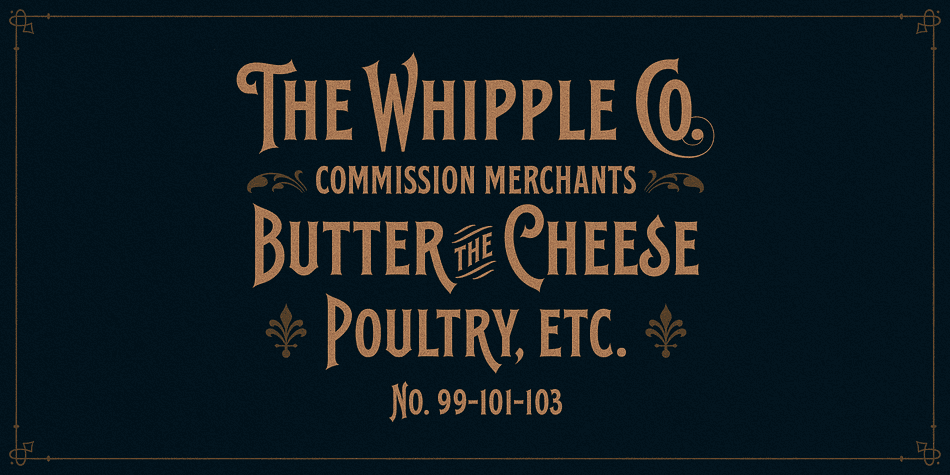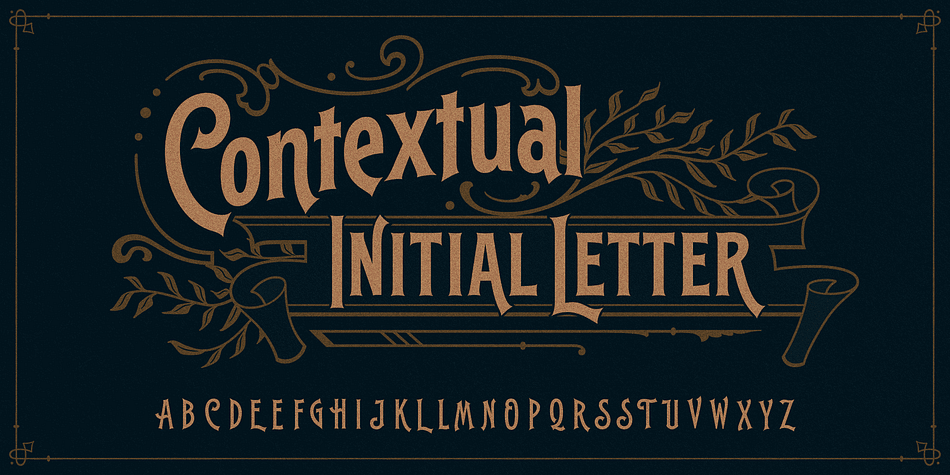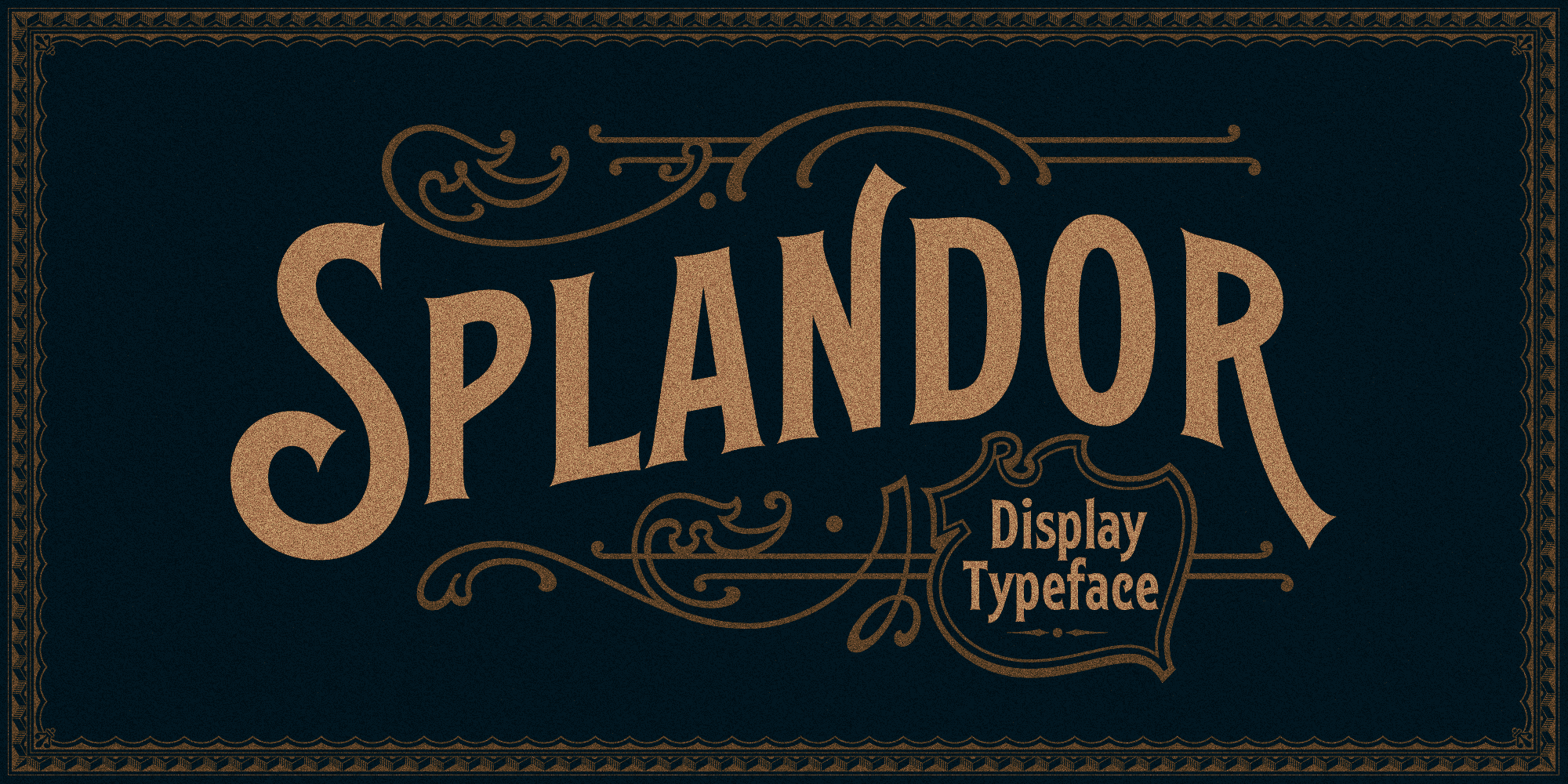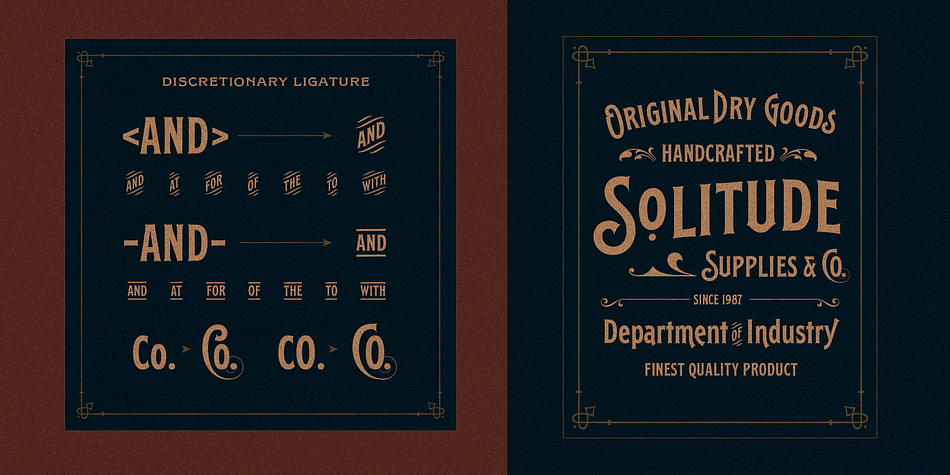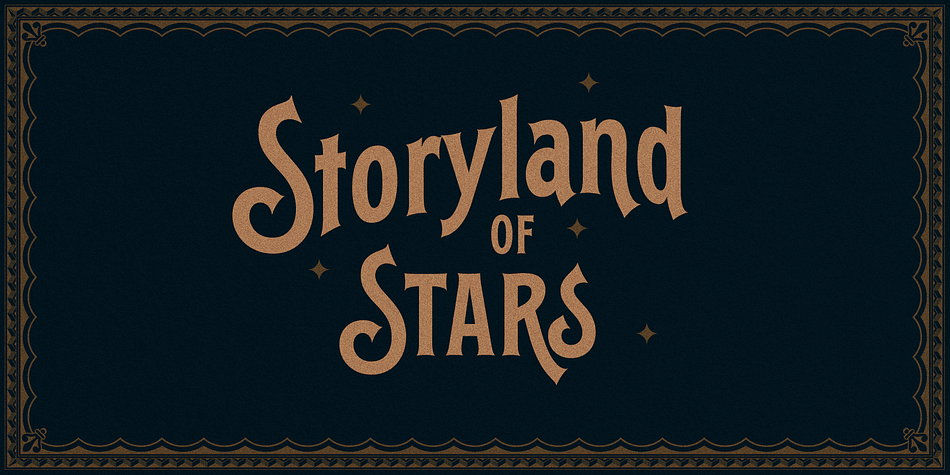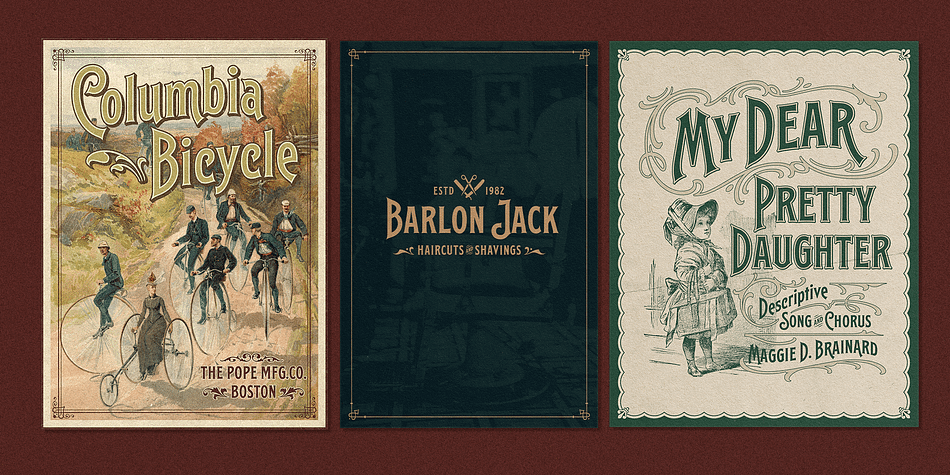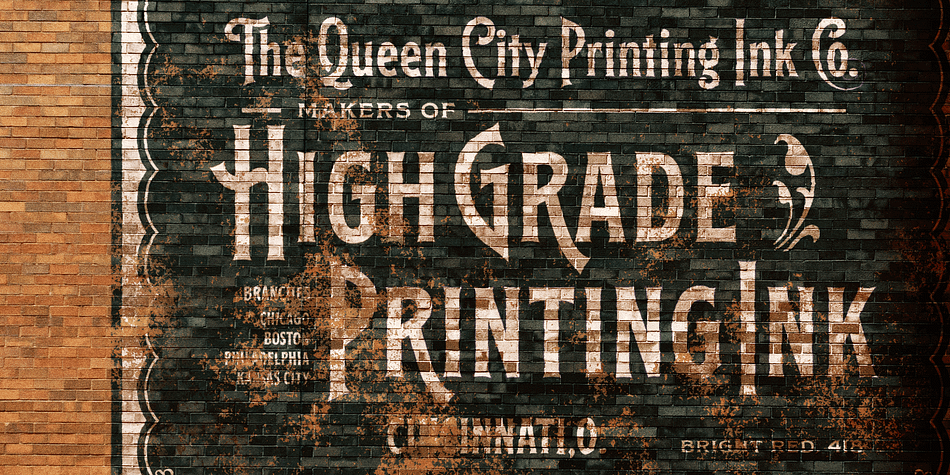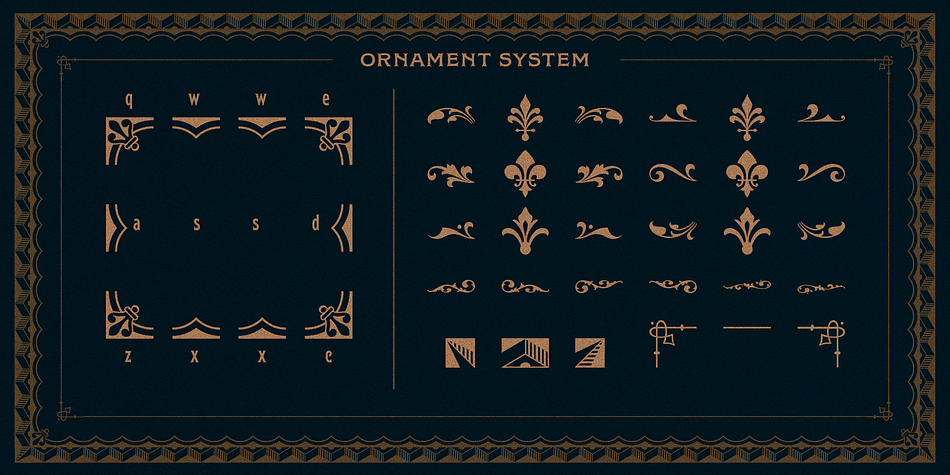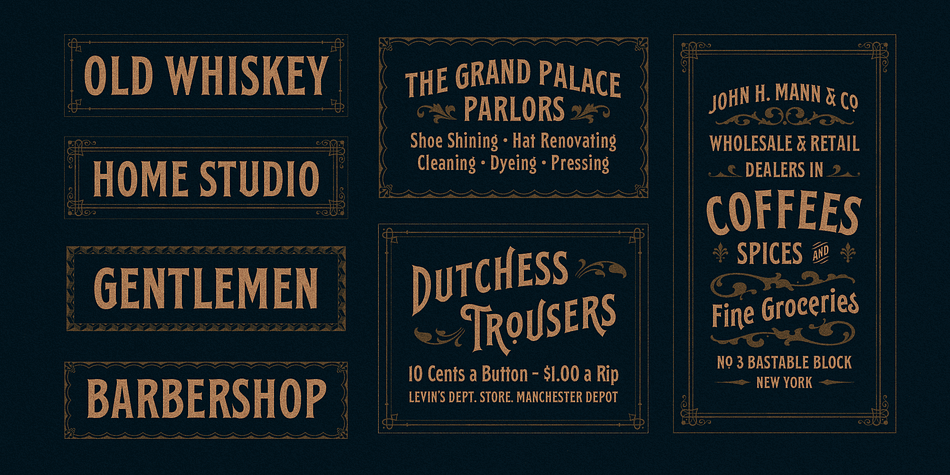
EFCO Splandor is a display serif and dingbat font family. This typeface has two styles and was published by Ilham Herry.
EFCO Splandor is display typeface inspired by the beauty of old ephemera in the 19th century especially on the vintage letterhead, invoices, receipt. Splandor comes with single weight and some ornament, OpenType feature support such as Stylistic set, ligature, contextual alternate, and ornaments. This font was created for display needs, such as headings, signage, posters, t-shirts, covers, labels, logos, etc